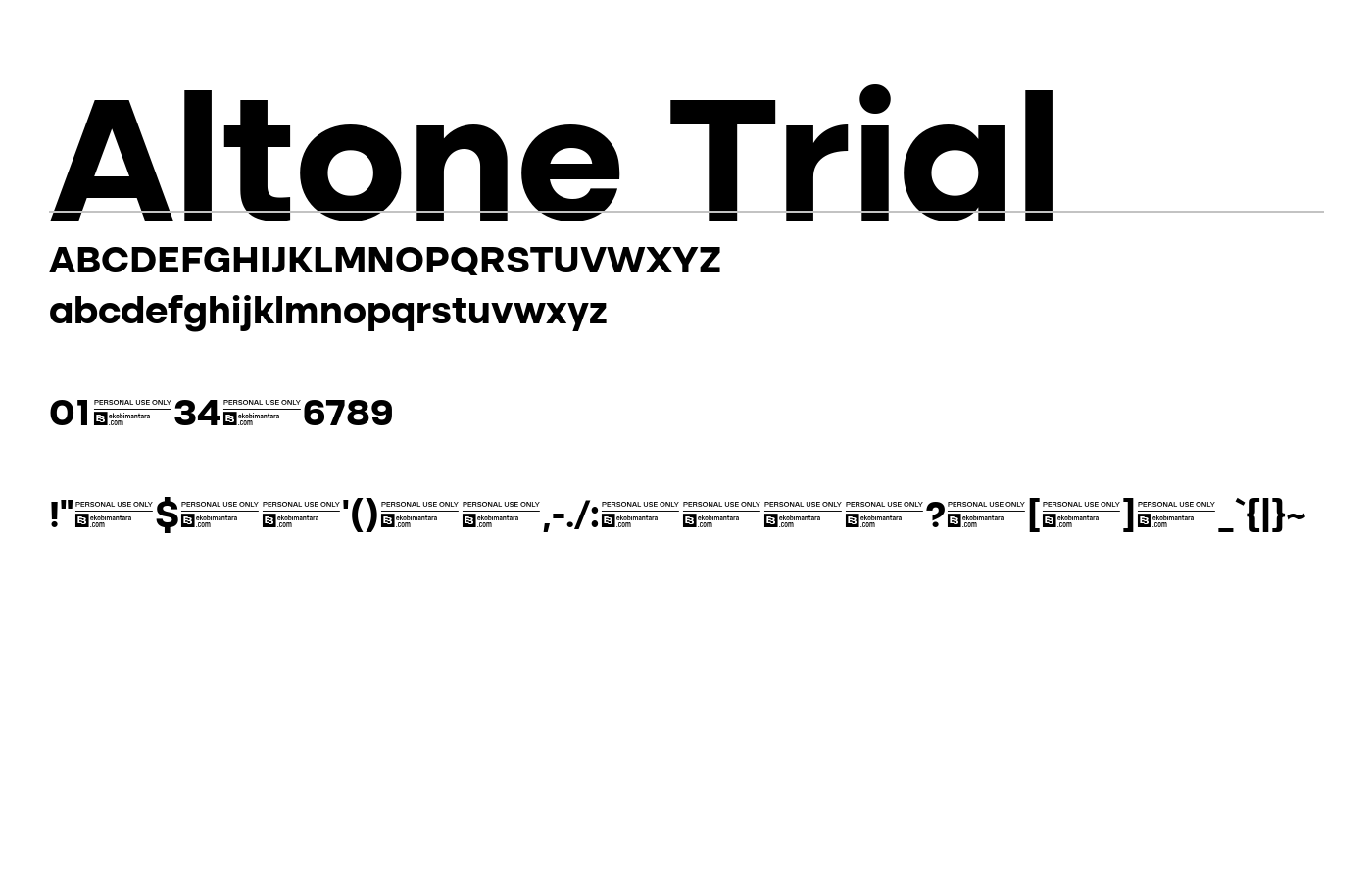
Altone Trial is a bold, geometric sans serif font with a strong, modern presence. Its clean lines, even stroke weight, and high x-height make it highly readable and effective for impactful headlines, branding, and digital use. This font conveys confidence and clarity, making it ideal for contemporary design projects seeking a sleek, professional look.
Altone Trial Font
About Altone Trial Font
| Font family | Altone Trial Font |
| Designer | Eko Bimantara |